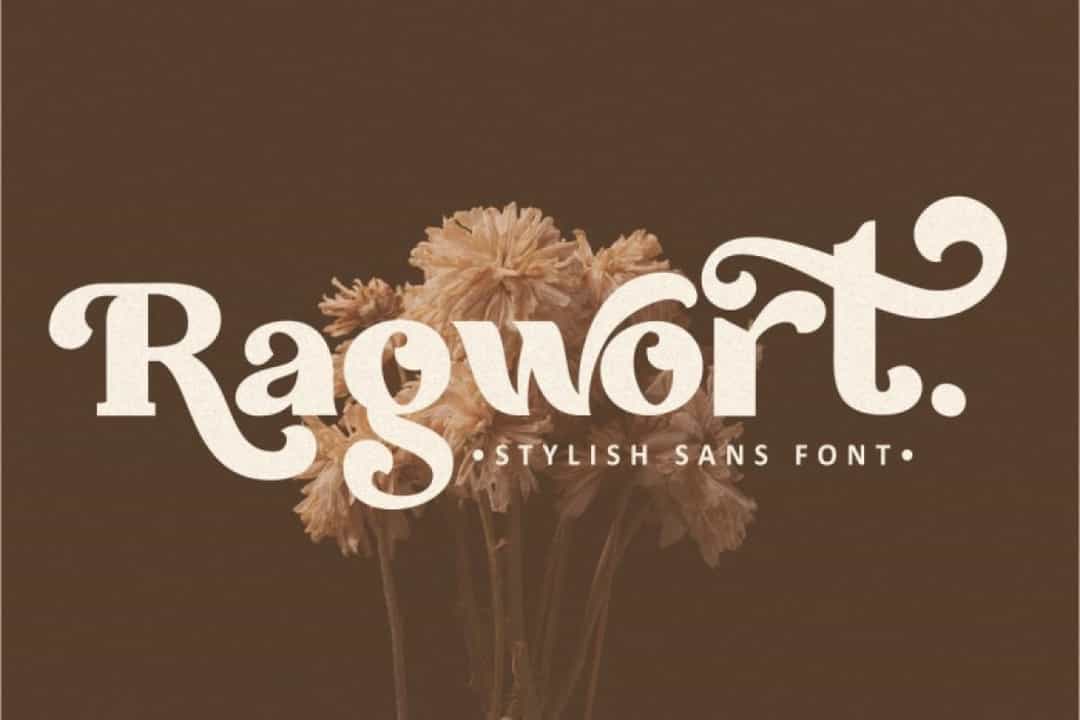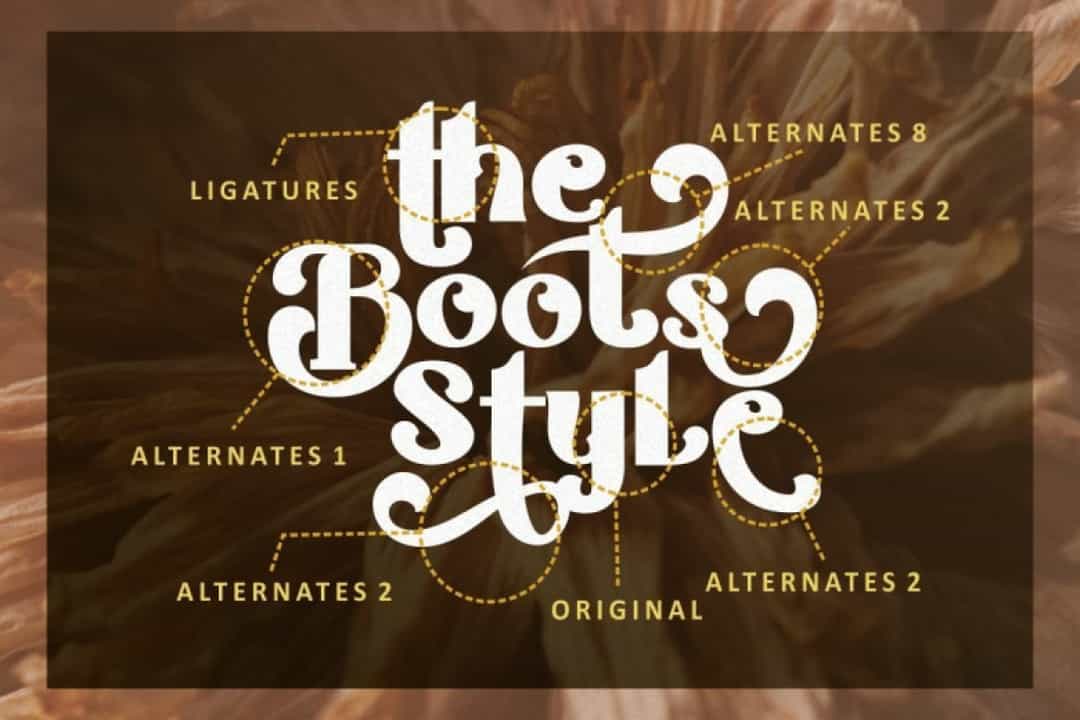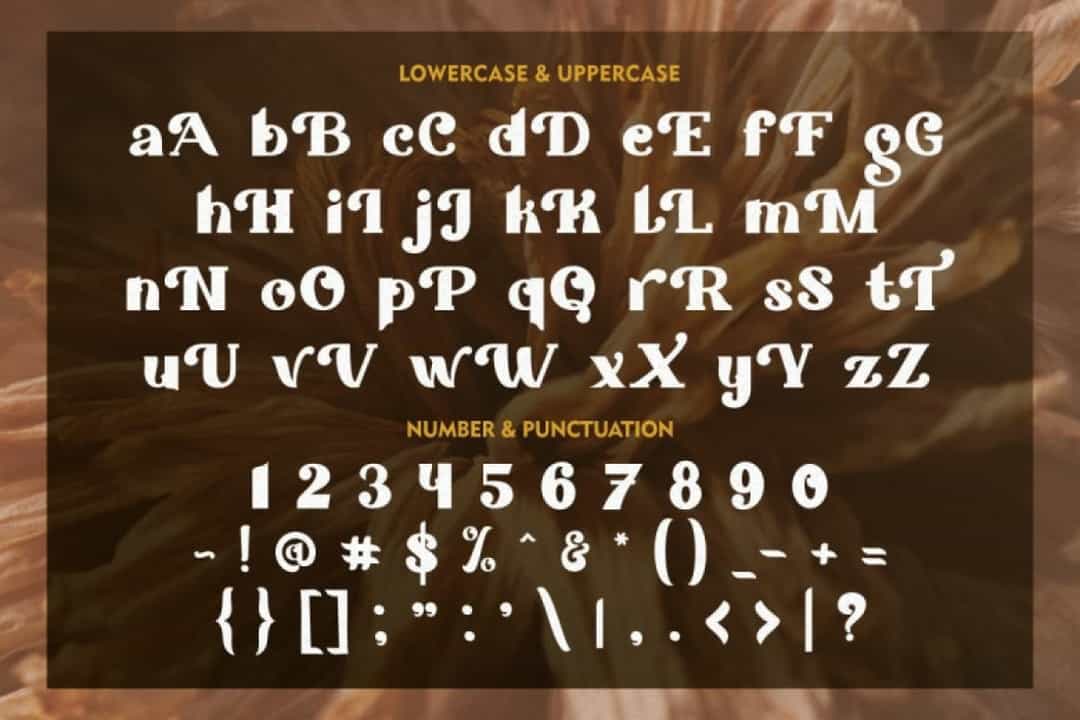
Ragwort Serif Font is a stylish vintage font inspired by 70’s hippie culture with modern touches. This bold font style and well-balanced curve will help your work to look its best. Additionally, Ragwort comes complete with an option that makes your work truly eye-catching!